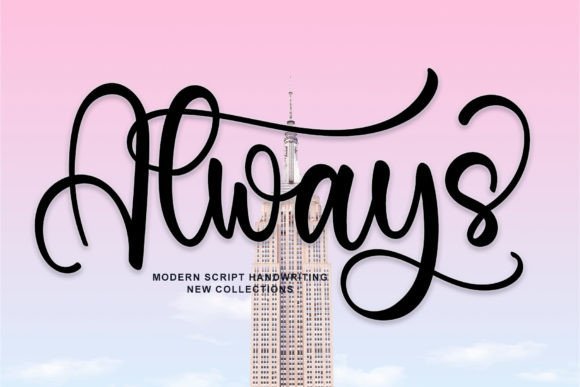
Introduction to Always Font
Always is a stylish handwritten font with a contemporary atmosphere and impeccable form, inspired by timeless classic calligraphy.
Balanced and varied, this font was designed to enhance the beauty of your projects .